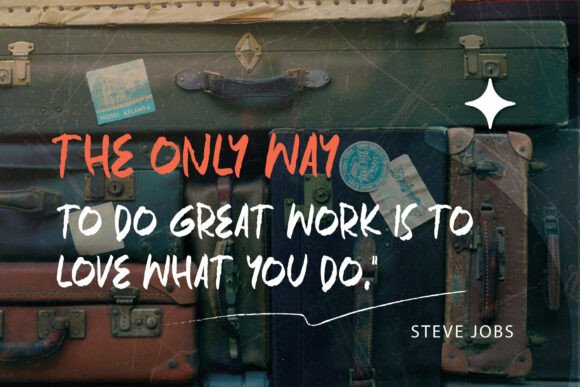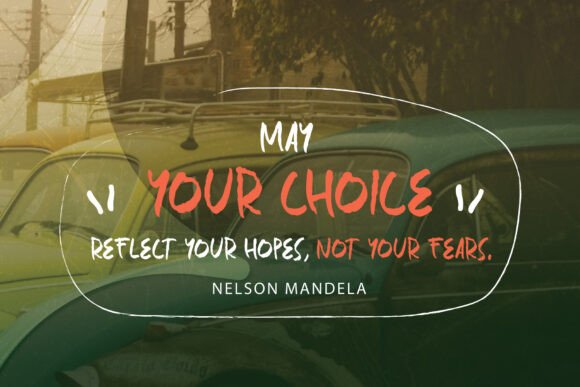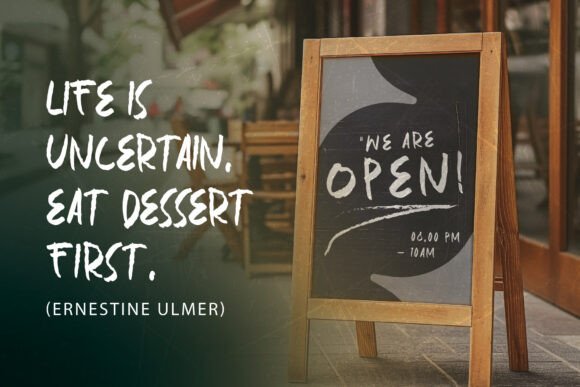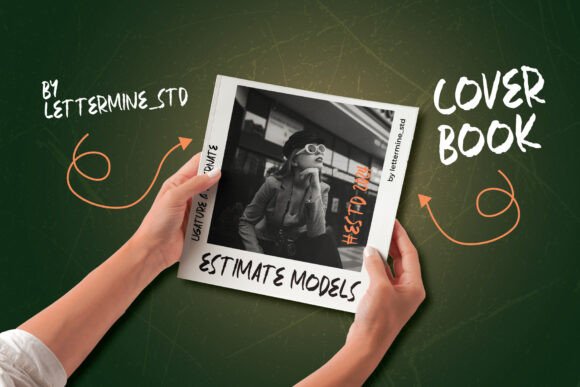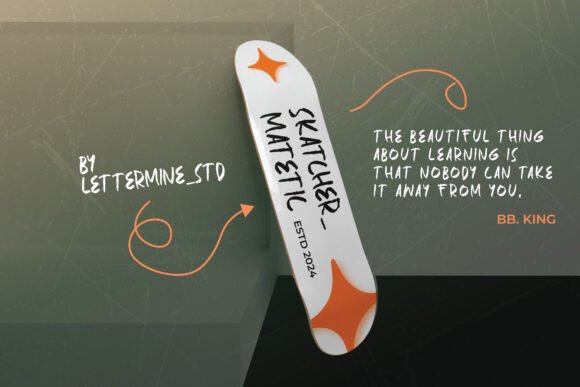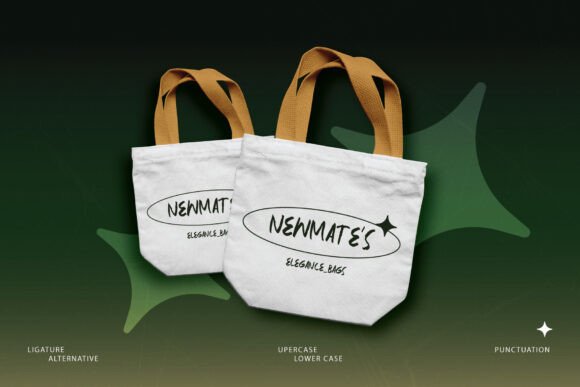
Introduction to Estimatetic Font
Remember the thrill of staring at a blank canvas, waiting for the perfect spark to ignite your creative project? For designers, that moment is often the most exhilarating – and with the right design resource, it can be the start of something truly remarkable. The Estimatetic Font is one such game-changer, a striking brush handwritten font that demands attention with its bold, all-caps style.
Each character in the Estimatetic Font is carefully crafted with expressive brush strokes, delivering an edgy yet authentic feel to your designs. Whether you’re working on a branding project or simply need a font that adds a touch of artistic boldness, this high-quality font is the perfect solution. And the best part? With its transparent background, you can easily integrate it into your design without any hassle.
Key Features of Estimatetic Font
- High-quality design: Estimatetic Font is crafted with attention to detail, ensuring a polished and professional look for your creative project.
- Unique characteristics: The Estimatetic Font features a unique blend of modern and vintage elements, making it perfect for projects that require a touch of sophistication and creativity.
- Scalable and versatile: This font is designed to be scalable, ensuring it looks great in various sizes, from small text to large headings, making it an excellent choice for a wide range of creative projects.
Honest Review: Estimatetic Font
Here’s what I love about the Estimatetic Font:
- ✨ High-quality typography that adds a professional touch to any design
- ✨ Versatility in its application, perfect for both digital and print designs
- ✨ Transparent background option that makes it easy to customize and integrate with other design elements
- ⚠️ Limited character set, which can be restrictive for certain design projects
- ⚠️ No support for advanced typography features, such as ligatures or contextual alternates
Overall, I’m impressed with the Estimatetic Font. It’s a solid design resource that’s perfect for those looking for a high-quality, easy-to-use font. While it may have some limitations, it’s definitely worth considering for your next creative project.
Tips for Getting the Most Out of Estimatetic Font
To get the most out of Estimatetic Font, experiment with different font sizes, colors, and combinations. Use it to add a touch of elegance to your design, or to create a bold and eye-catching headline. Don’t be afraid to try out different styles and see what works best for your creative project.
Estimatetic Font is perfect for creating eye-catching headlines, titles, and logos. It’s also great for adding a touch of sophistication to your website, brochure, or social media graphics. With its high-quality design and transparent background, Estimatetic Font is a versatile design resource that can be used in a variety of creative projects.